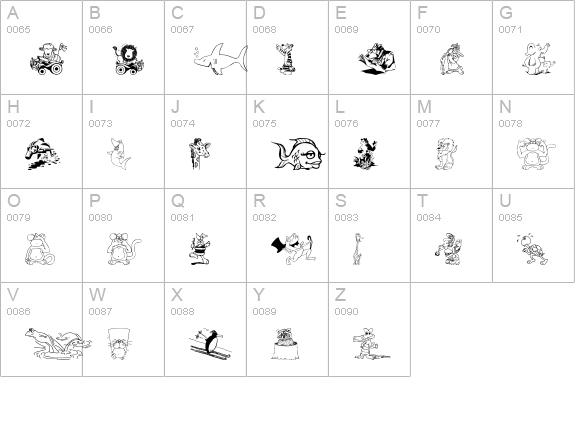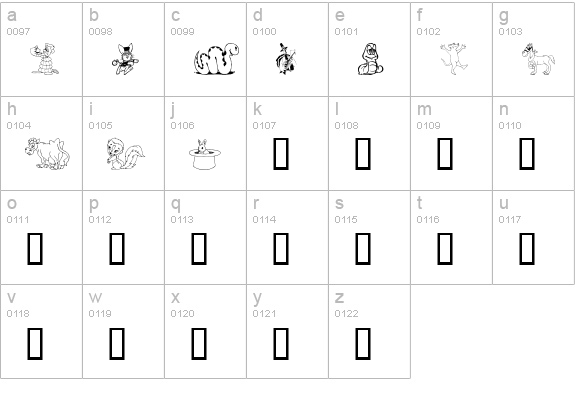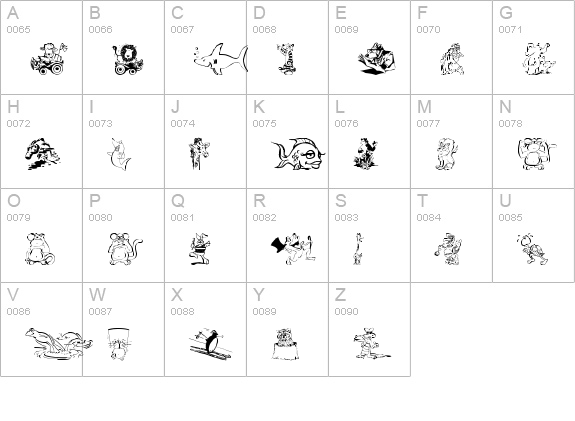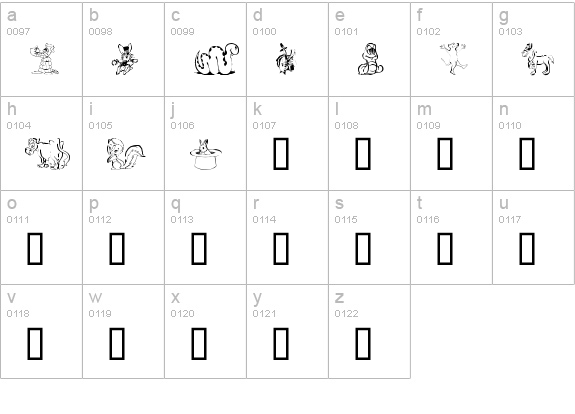
Komedy Kritters Font Details
Introducing the charming and whimsical Komedy Kritters font! This delightful typeface is perfect for adding a touch of fun and playfulness to your designs. With its quirky characters and playful curves, Komedy Kritters is sure to bring a smile to your audience's face. This unique font is not only fun to look at but also versatile in its application. Whether you're creating a poster for a comedy show, designing a playful logo, or adding a touch of humor to your social media posts, Komedy Kritters is the perfect choice. Best of all, Komedy Kritters is available for free download at FontsMarket.com. So go ahead and unleash your creativity with this charming and playful font today!